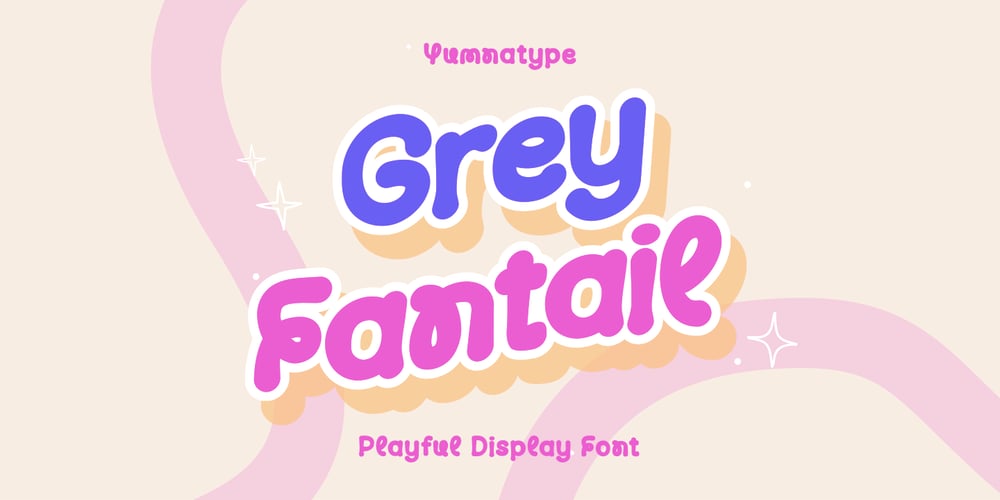
Grey Fantail Font Family was designed by Donis Miftahudin and published by Yumna Type. Grey Fantail contains 1 styles and family package options. Introducing Grey Fantail, a display font that dances with whimsy and mischief, designed to inject a playful charm into your projects. With its bold weight and low contrast, Grey Fantail confidently commands attention while maintaining a delightful lightness. Inspired by the graceful movements of the Grey Fantail bird, this font embodies a sense of fluidity and agility. It flutters across the page, leaving a trail of joy in its wake. In addition, enjoy the features here.Features: Ligatures Multilingual Supports PUA Encoded Numerals and Punctuations Grey Fantail fits in headlines, logos, posters, flyers, branding materials, print media, editorial layouts, and many more designs. Find out more ways to use this font by taking a look at the font preview.Thanks for purchasing our fonts. Hopefully, you have a great time using our font. Feel free to contact us anytime for further information or when you have trouble with the font. Thanks a lot and happy designing.